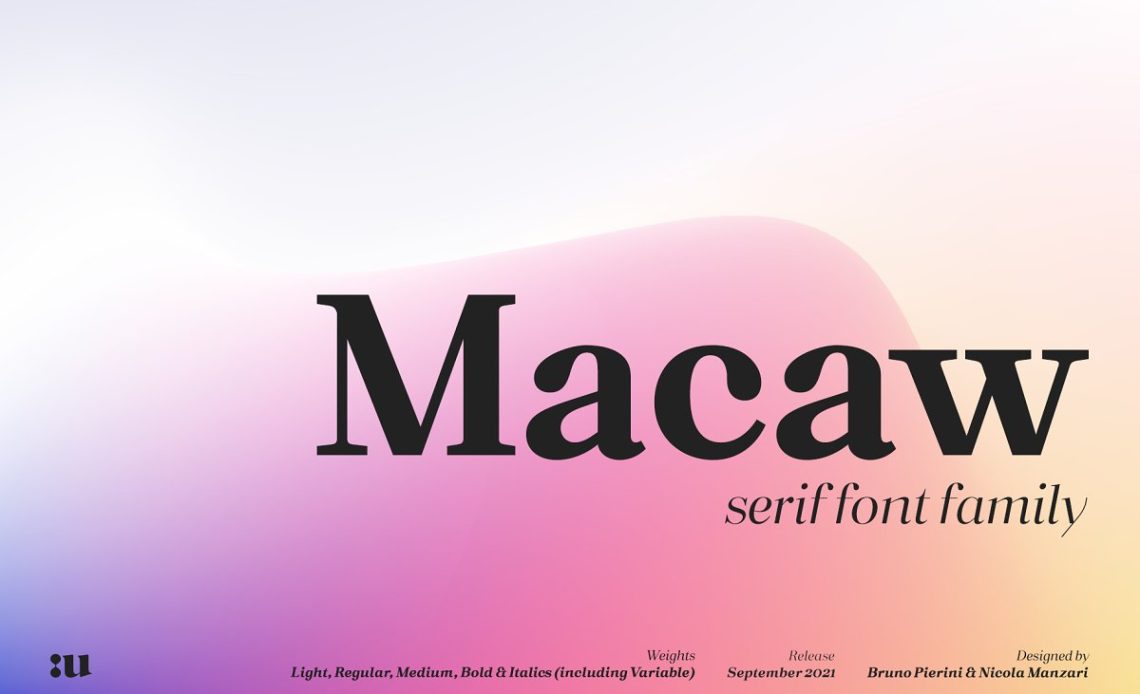
Introducing "Macaw," the ultimate serif typeface designed to elevate your creative projects to new heights. Created by Unio Creative Solutions, this font is the perfect choice for advertising copy that demands attention and captivates users.
With its modern yet classical typography, "Macaw" combines elegance and sophistication. The delicate forms of the lighter weights give your text a refined touch, while the bolder weights make a bold statement that cannot be ignored. Each weight is carefully designed to emphasize the power and distinctiveness of your project.
Drawing inspiration from the Italian newspaper market of the early 20th century, "Macaw" brings a timeless charm to your designs. Its versatile and legible nature ensures that it can be used at any text size, making it suitable for a wide range of applications.
This multilanguage serif family offers a unique fluidity that effortlessly blends modern and classic aesthetics. Whether you need it for editorial purposes, corporate identity, web design, or social feeds, "Macaw" seamlessly adapts to any destination of use.
Included in the package are four weights: Macaw Light, Macaw Regular, Macaw Medium, and Macaw Bold, each with corresponding italics. Additionally, you'll receive a bonus file with Macaw Variable, providing even more creative possibilities.